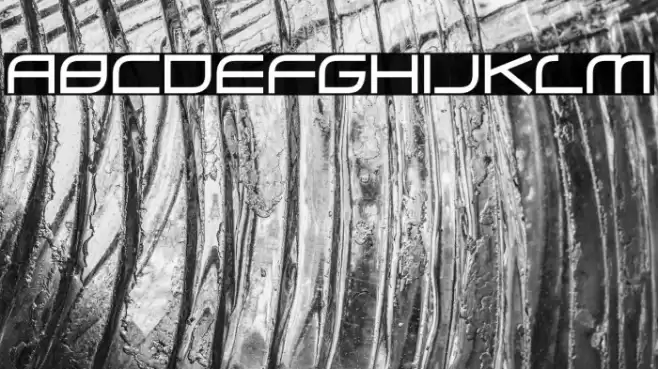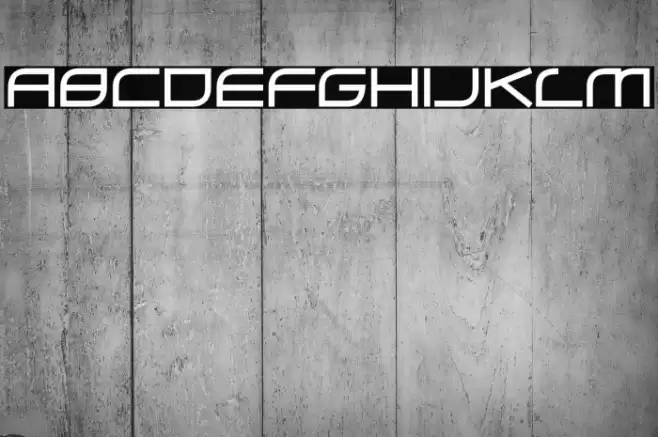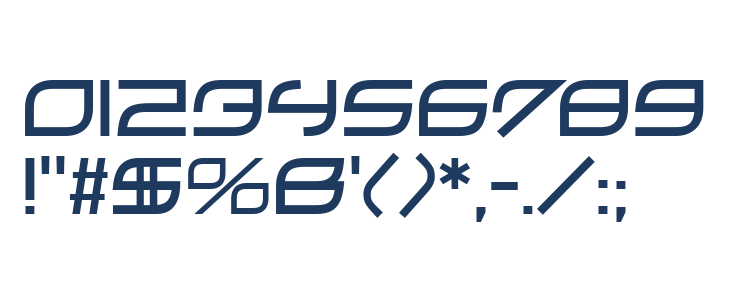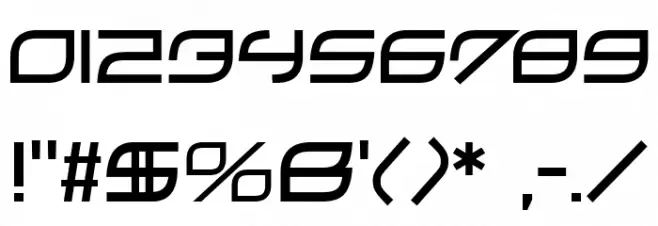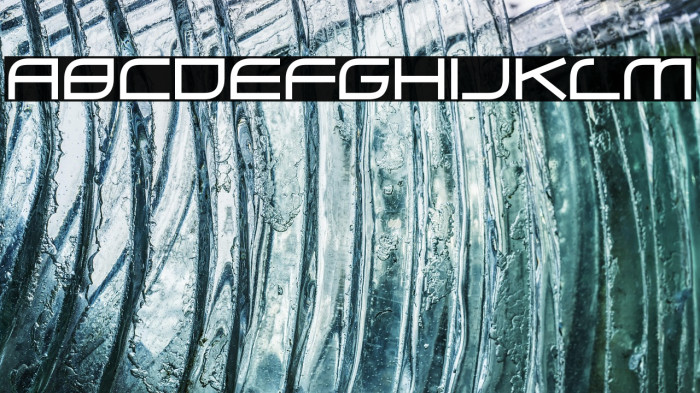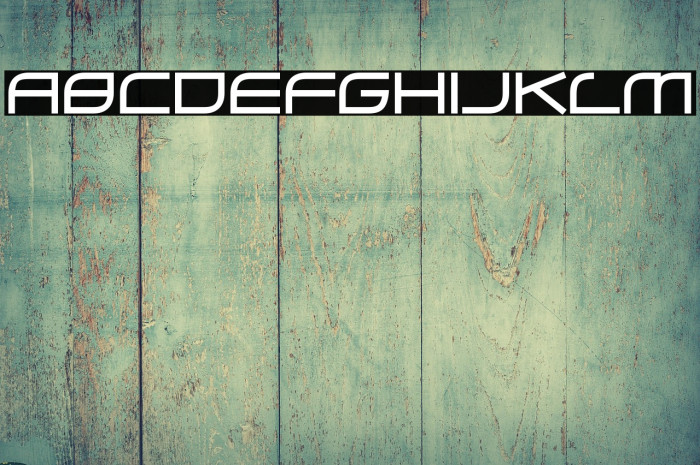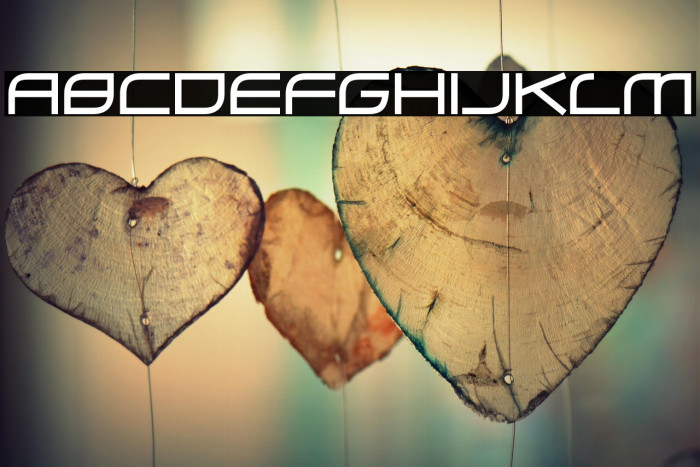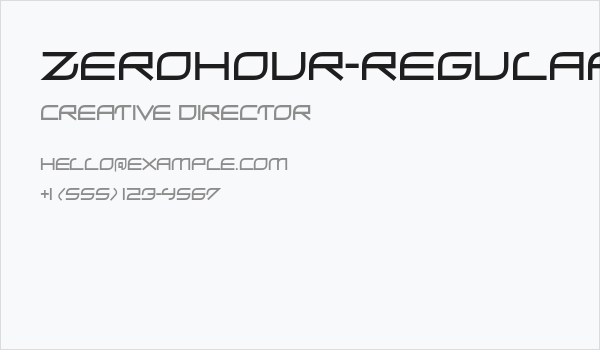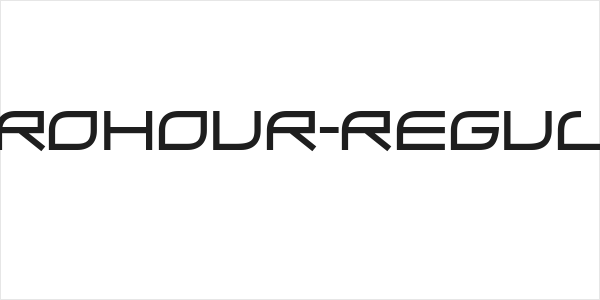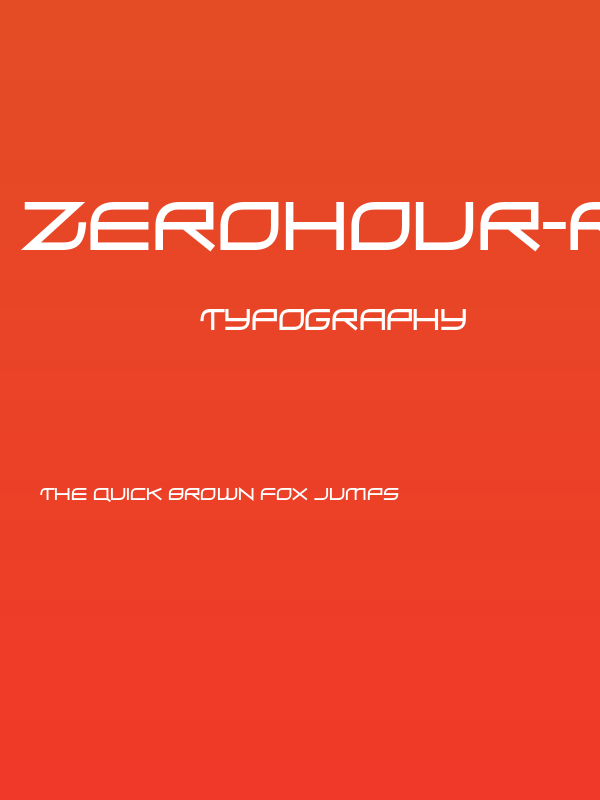
ZeroHour-Regular Font
ZeroHour-Regular Description
This font features a futuristic and geometric design, characterized by its angular and sleek letterforms. The uppercase letters have a distinct, modern appearance with sharp edges and a consistent stroke width, creating a sense of uniformity and precision. The lowercase letters maintain the same geometric style, ensuring readability while adding a unique flair. Numbers are designed with a similar aesthetic, making them easily distinguishable and visually appealing. Special characters are crafted to match the overall style, providing a cohesive look across all elements. This font is ideal for projects that require a contemporary and tech-inspired feel.
A futuristic, geometric font with sharp, angular letterforms from Uncategorized fonts.
- Font: ZeroHour-Regular
- Proposed Projects: Ideal for tech branding, sci-fi posters, video game titles, and modern web design.